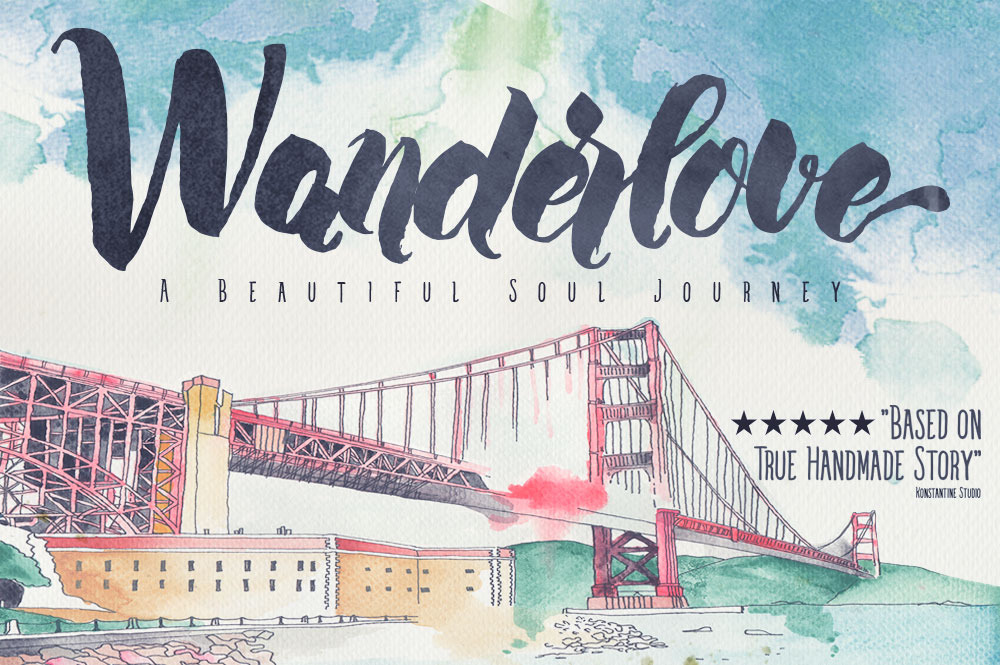
Wanderlove brush script font
Wanderlove is a solo dance of the brush script typeface with the interprentation from the freedomness and humble thing about the natural and beautiful sight from the traveler's journey. Super fit for the design project such as wedding invitation, scrapbook, novel, notebook, gift card, anything that you need to touch with love, she's always be the best partner for it ;)